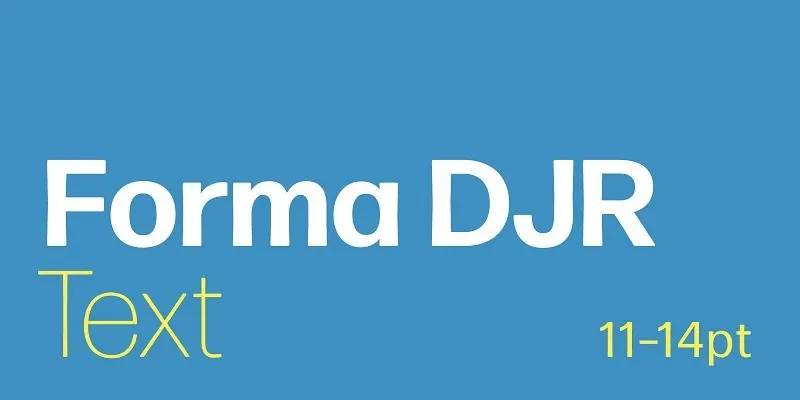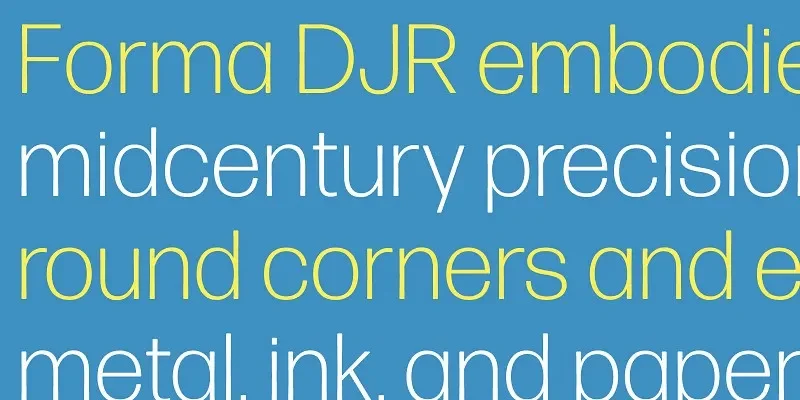
Forma DJR Text Font Family solves readability challenges in long-form content. Many geometric sans-serifs struggle in body text.
Forma DJR Text is a sans-serif text font family designed by David Jonathan Ross. It features open counters, moderate contrast, and balanced proportions for sustained reading.